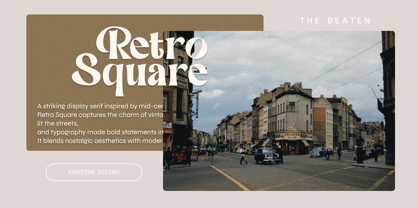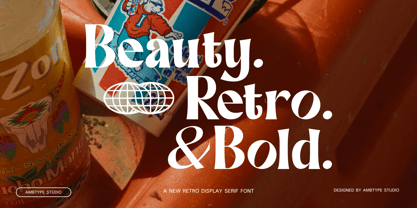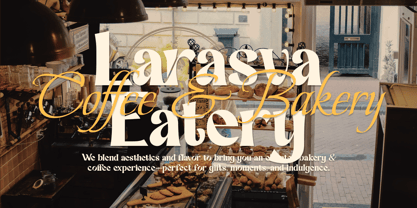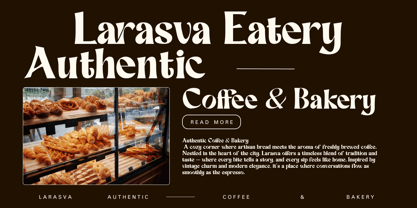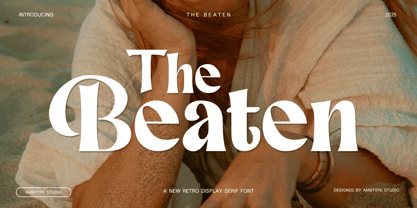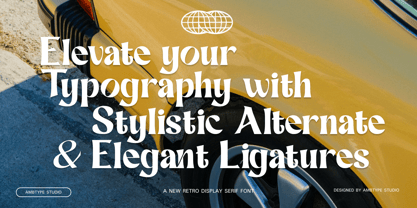
The Beaten
by Ambtype Studio
The The Beaten Font Family was designed by William Rizky Bahari and published by Ambtype Studio. The Beaten contains 2 styles and family package options. More about this family
The Beaten is a retro serif font that blends bold character with timeless style, offering a perfect harmony of vintage flair and modern sophistication. With its confident curves and elegant details, The Beaten brings a nostalgic yet refreshing presence to any design, making it an ideal choice for projects that seek to stand out with classic charm and stylish attitude.
Packed with a variety of expressive alternates, The Beaten gives designers the freedom to explore creative ideas with personality and flair. Each character carries a touch of the past, reimagined with a contemporary twist — resulting in typography that feels both familiar and excitingly fresh.
Perfect for logos, editorial titles, brand identities, packaging, and social media graphics, The Beaten adapts beautifully to a range of design needs. Whether you're crafting a bold retro concept or adding a stylish edge to modern visuals, The Beaten delivers impact, charm, and visual elegance in every letter.
Designers: William Rizky Bahari
Current Foundry: Ambtype Studio